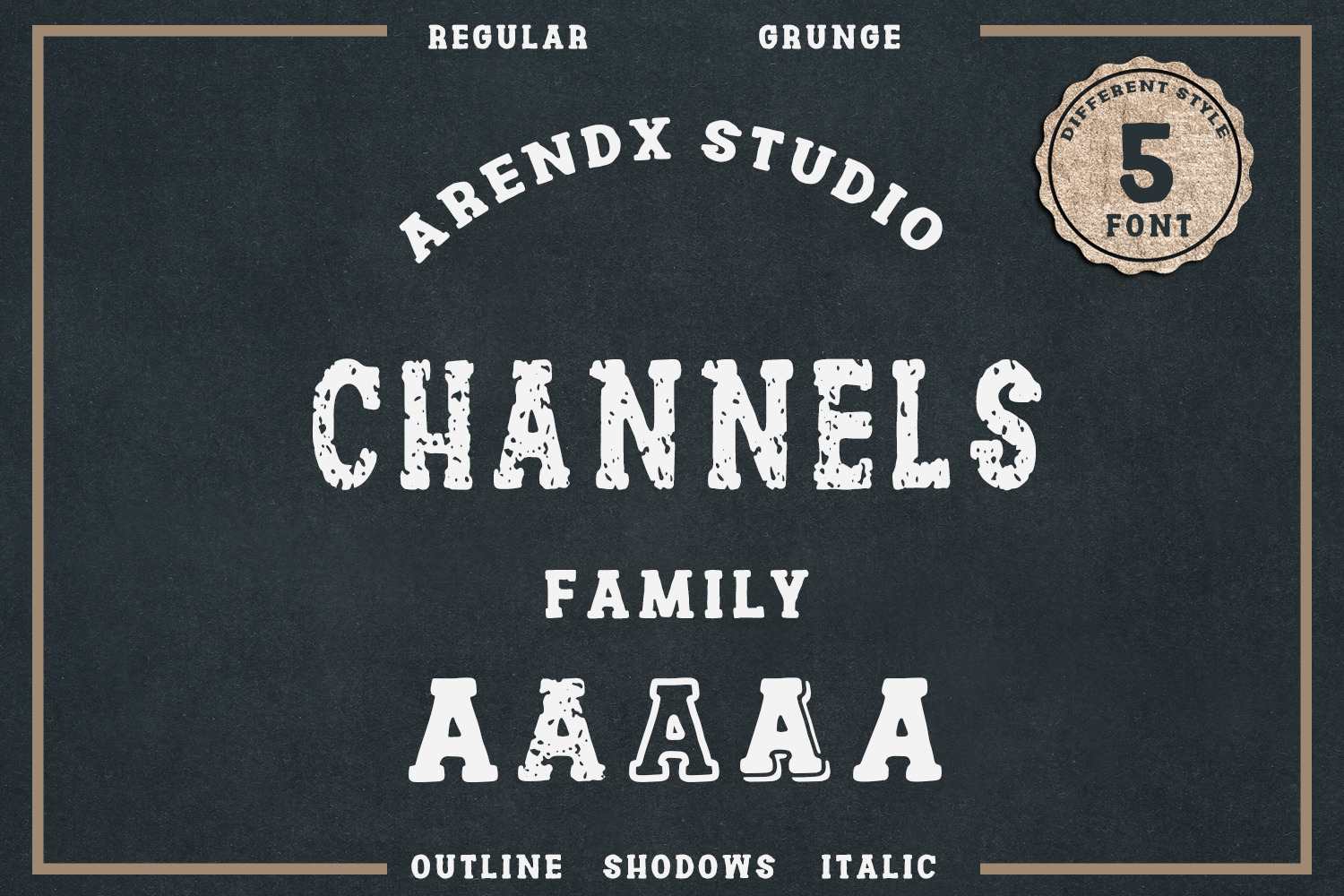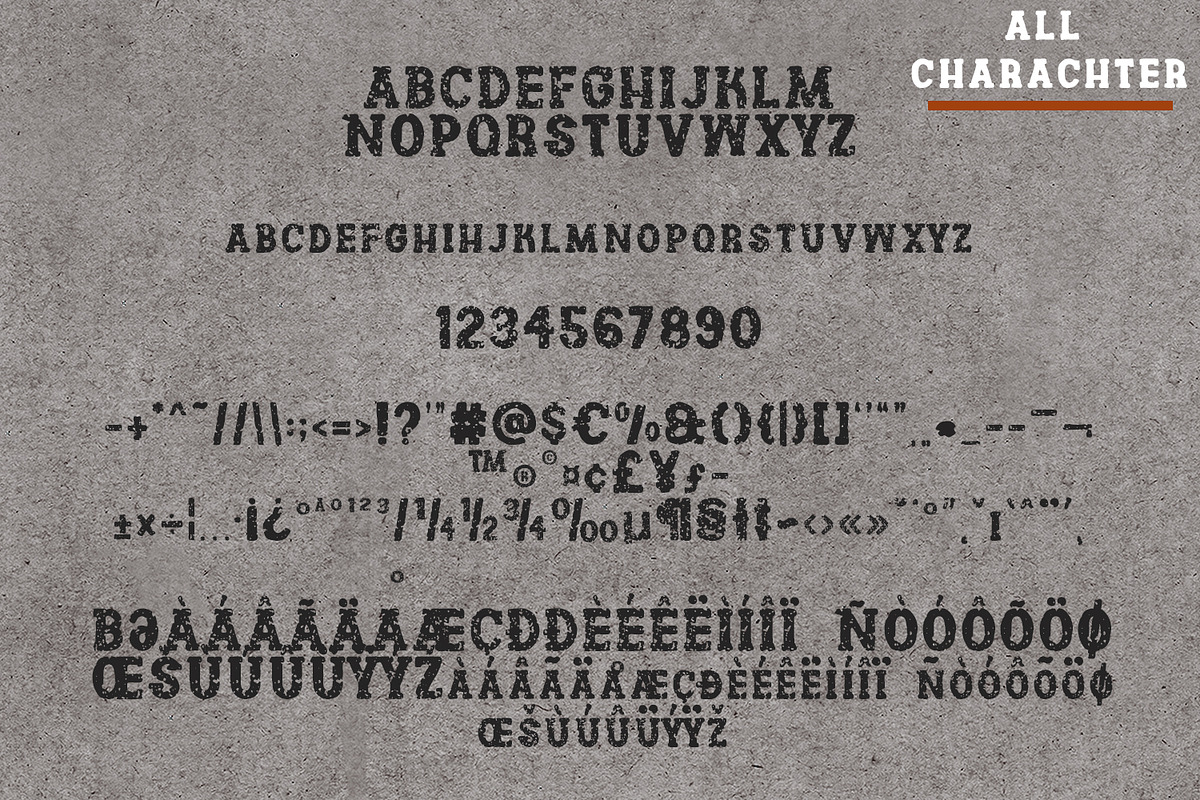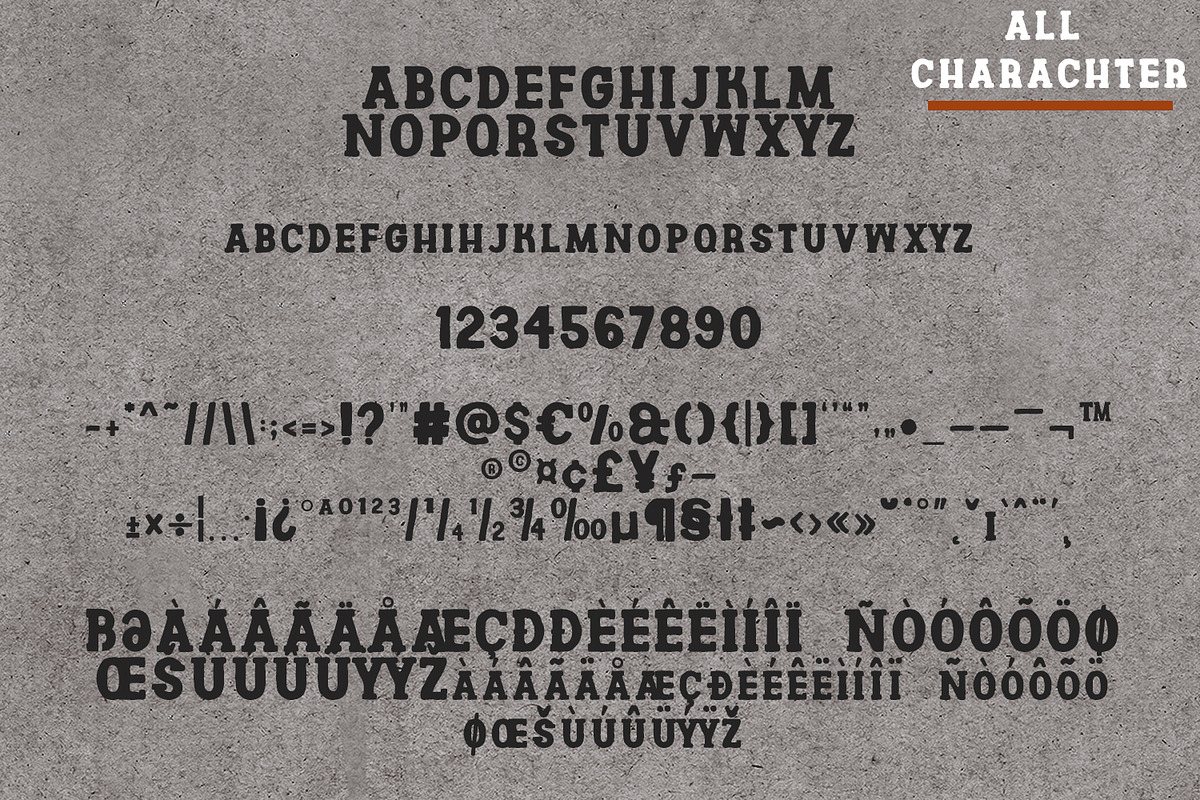
Channels Family Vintage Font
Channels is Vintage family that is wrapped into a retro style that is very creative and strong and will be very suitable for the various types of design projects you place it in.